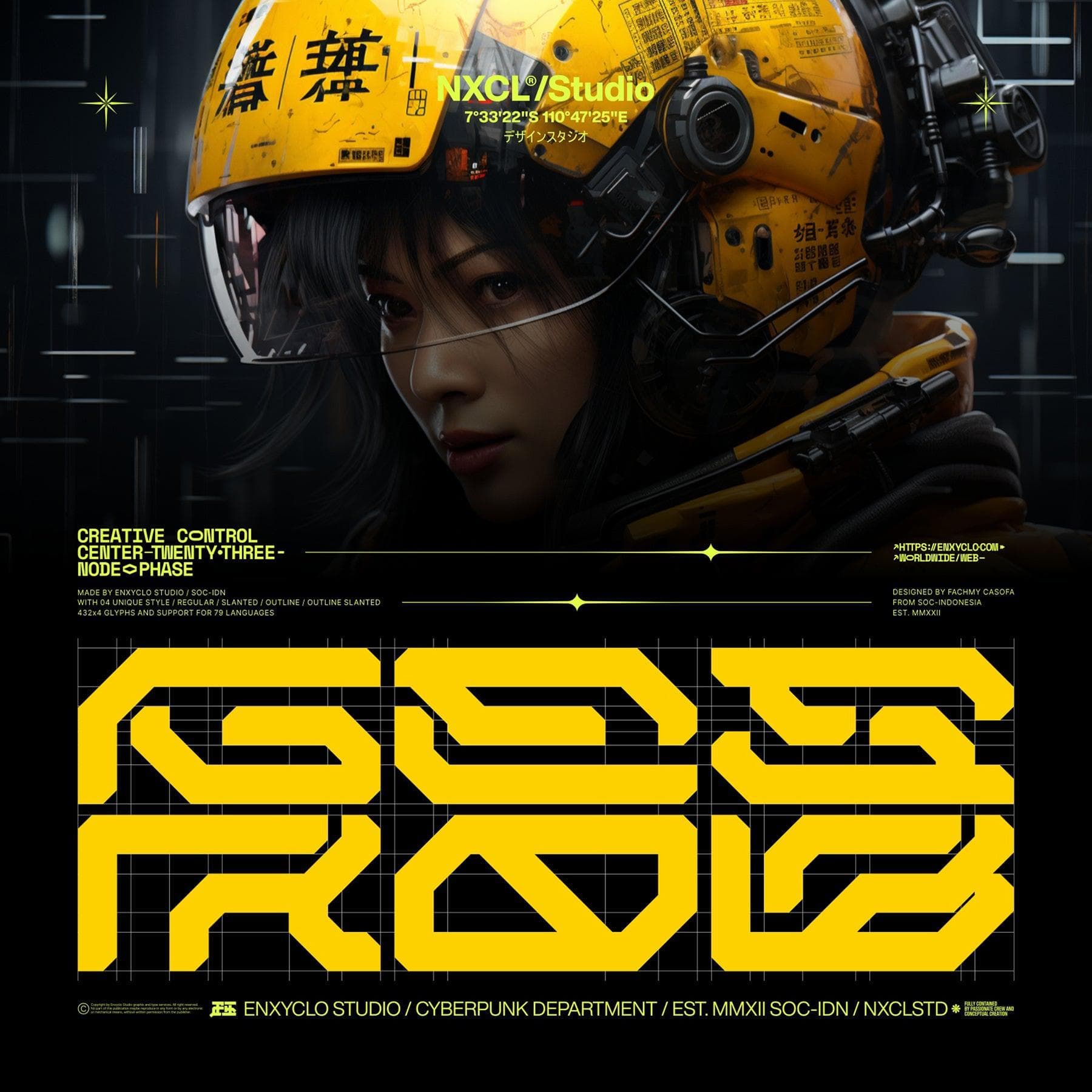
<p><strong>NCL GESROB</strong><em> </em>is not your ordinary font. It’s a modern cyberpunk futuristic techno mecha font that takes your creativity to the next level. Its futuristic aesthetics bring a whole new dimension to your designs, making them stand out. Whether you’re working on a website, poster, logo, or any other project, this font adds that extra touch of innovation and sophistication.</p><p><strong>FEATURES</strong></p><ul><li><p>4 Style: <strong>Regular, Slanted, Outline, Outline Slanted</strong></p></li><li><p>Contains 432 Glyphs for Each Style and 1728 Glyphs for Total</p></li><li><p>Uppercase & Lowercase</p></li><li><p>Numeral, Punctuation & Symbols</p></li><li><p>Stylistic Set 1-3</p></li><li><p>Multilingual Support</p></li></ul><p></p>